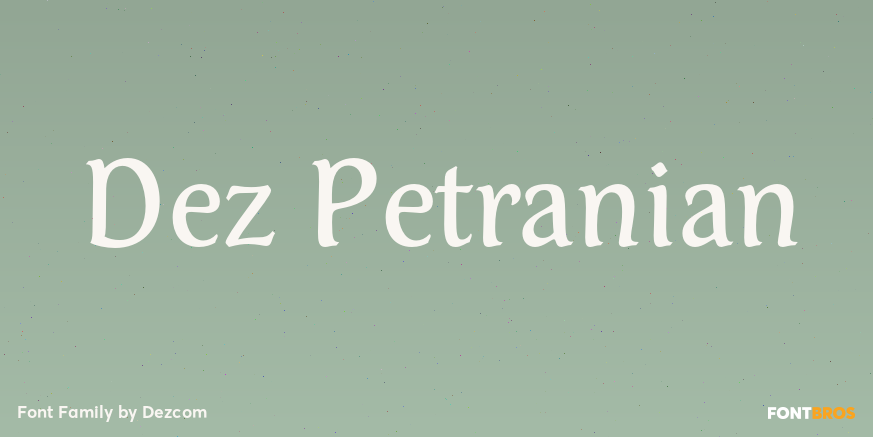
Dez Petranian
About Dez Petranian
Dez Petranian is a story-telling fantasy friendly family of fonts. It is a warm face that looks like the spoken word, perfect for tall tails, fantasy-world adventure books, creative writing, and poetry. Dez Petranian includes multiple language support,…